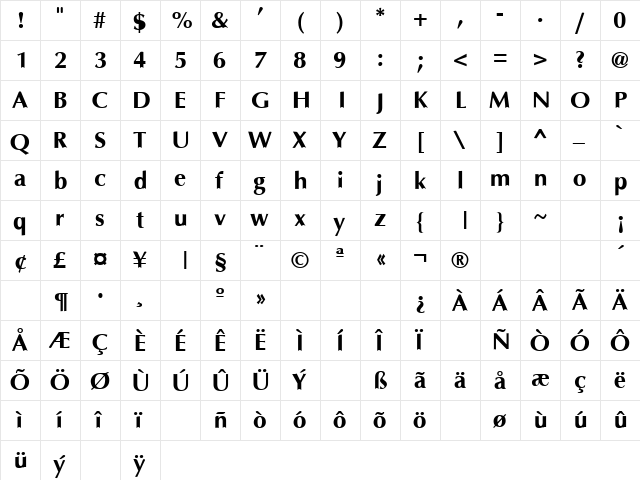
Optimal Bold
Design Context for Optimal Typeface
Optimal offers clean, dependable letterforms without strong stylistic allegiance, making it a practical choice for designers who need flexibility. Its bold stroke weight gives it real presence on the page.
Pro Tip: Pair Optimal with a font of contrasting weight or personality to build a more expressive typographic hierarchy.